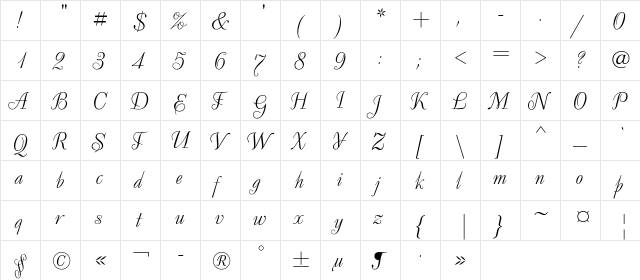
DecorC Regular
Design Context for DecorC Typeface
DecorC is a composed and adaptable typeface that performs quietly and consistently across a wide range of design contexts.